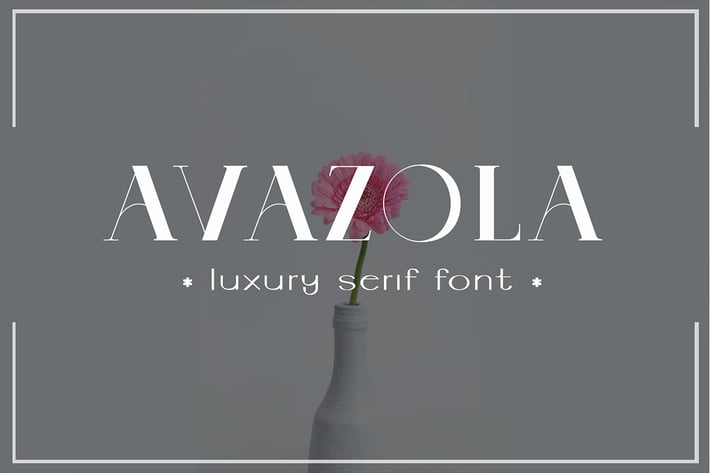
Avazola - Luxury Serif Font
Introducing Avazola, an elegant, luxury, and beauty serif font. Its unique and lovely feel.
So perfect for you who needs a typeface for logo designs, magazine, social media, brochure, and many more.